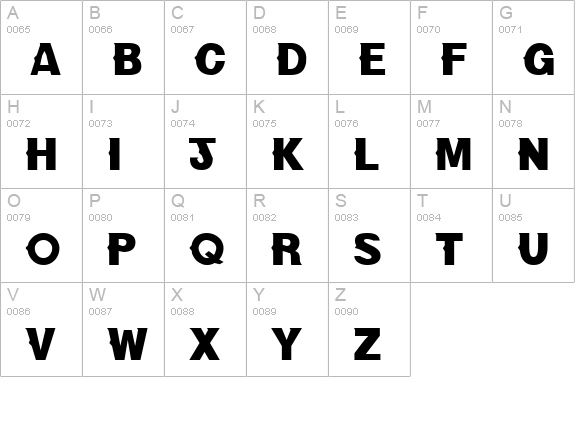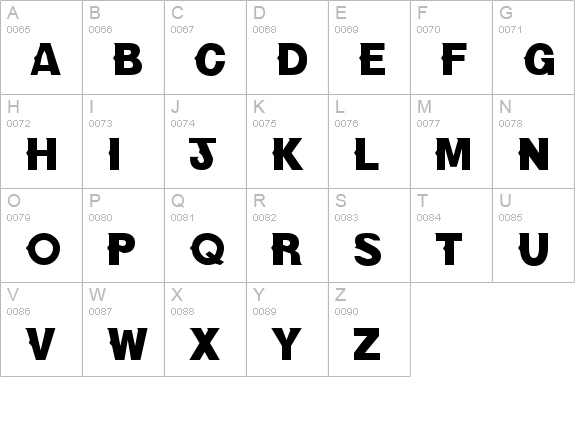
New Bold is a strong, high-contrast variant in the New typeface family \xE2\x80\x94 well suited to headlines, attention-grabbing titles, and strong calls-to-action.
Introducing New Bold font, a striking typeface that exudes confidence and modernity. With its bold and impactful design, New Bold is the perfect choice for making a statement in your creative projects. This versatile font is ideal for headlines, logos, posters, and other design applications where you want to grab attention and leave a lasting impression. The best part? New Bold font is available for free download at FontsMarket.com, making it easily accessible for designers and creatives looking to elevate their work with a touch of boldness. Don't miss out on this opportunity to add a touch of sophistication and style to your projects with New Bold font. Download it today and let your creativity shine!